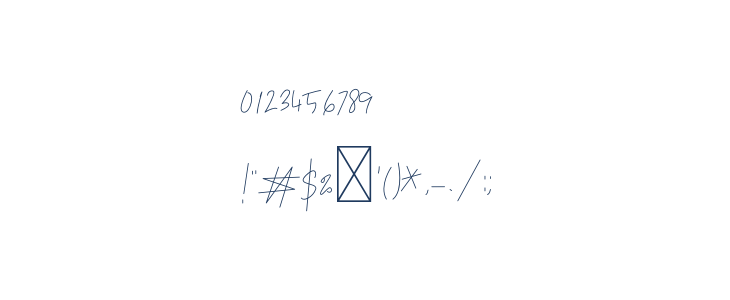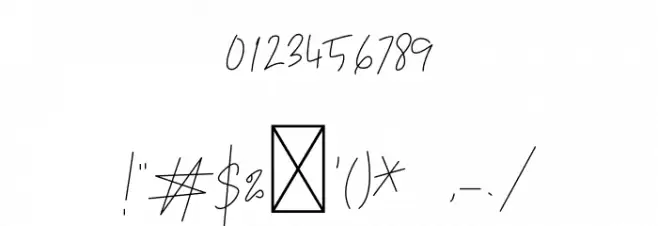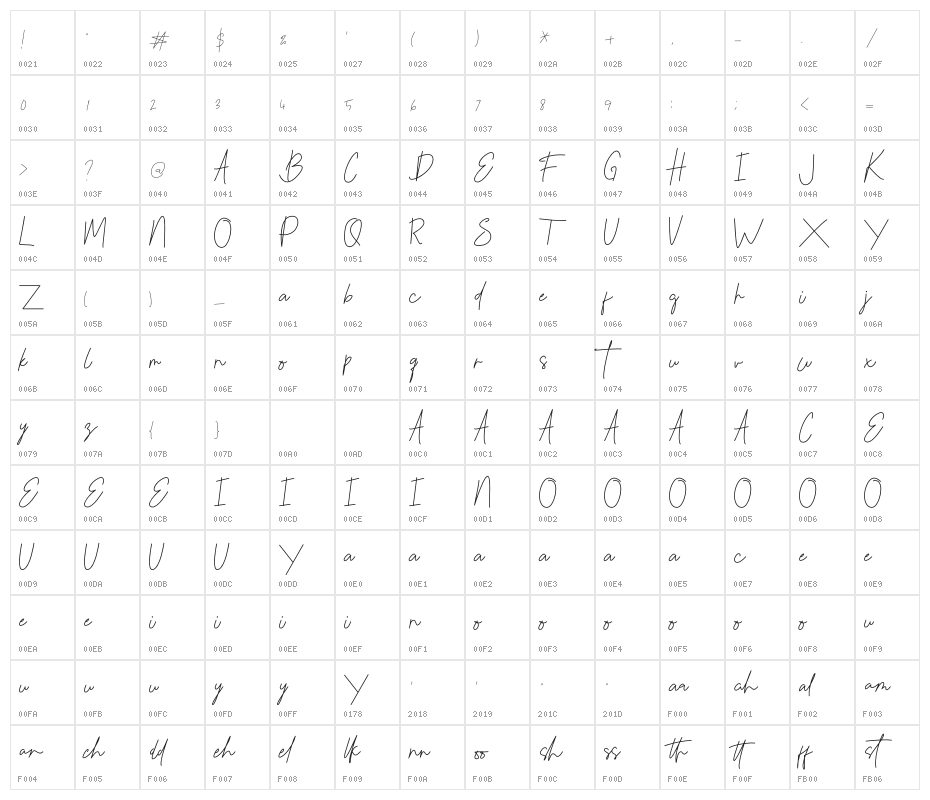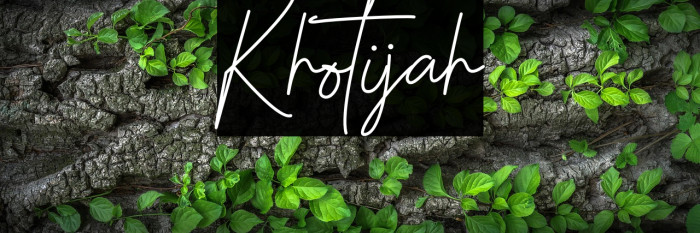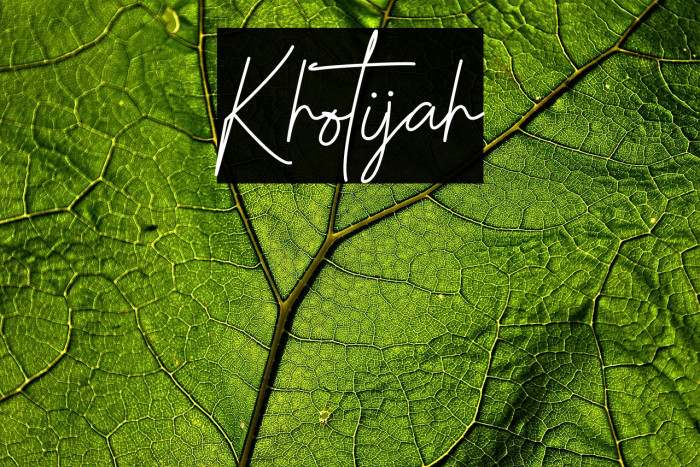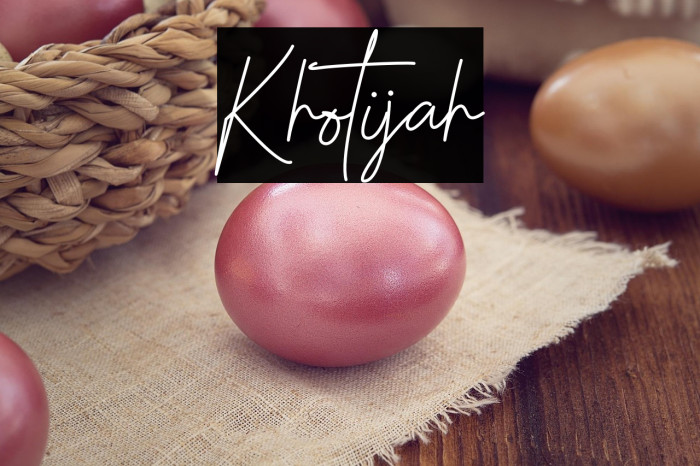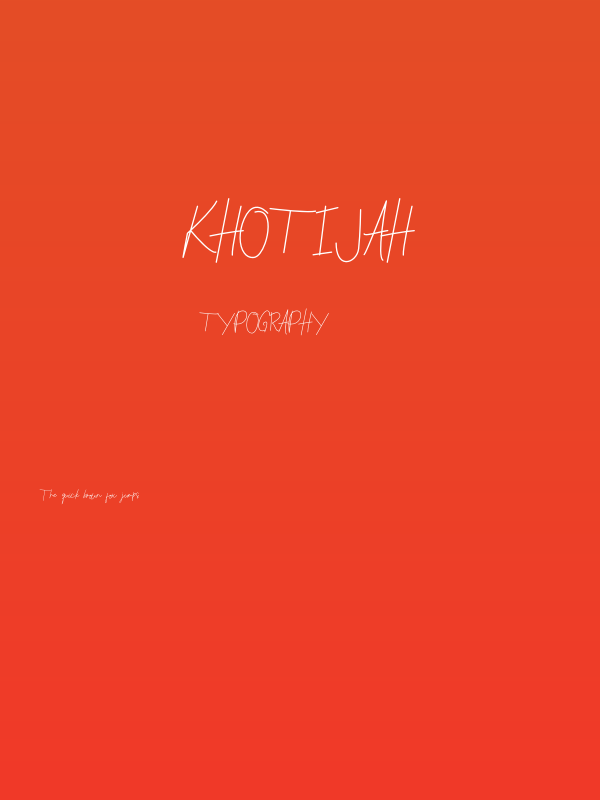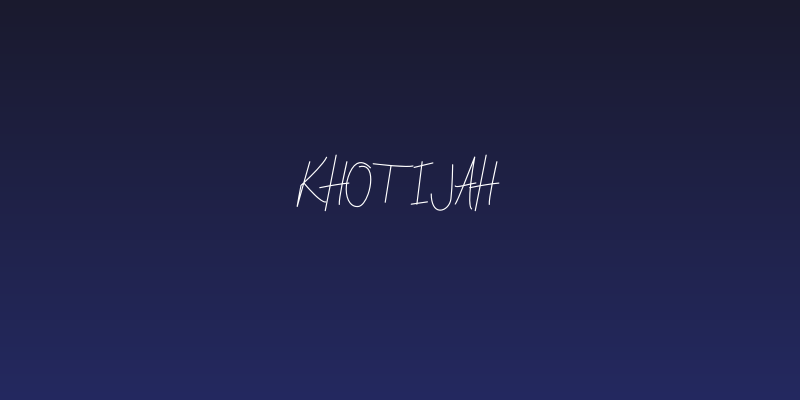
Khotijah Font
Khotijah Description
This font features a distinct handwritten style with a casual and flowing appearance. The uppercase letters are tall and slender, with a slight slant that adds a dynamic feel. The lowercase letters maintain a consistent flow, with some characters featuring unique loops and curves that enhance the handwritten aesthetic. The numbers are clear and legible, matching the overall style of the alphabet. Special characters are included, maintaining the same casual and artistic flair. This font is perfect for projects that require a personal touch, such as invitations, greeting cards, or creative branding.
Overall StyleCasual, Artistic
Use CaseHeadlines, Logos, Creative projects
Proposed ProjectsIdeal for invitations, greeting cards, personal branding, and creative projects.